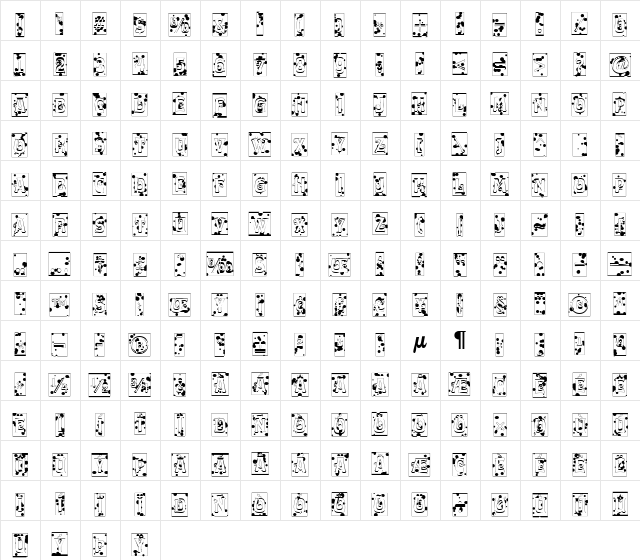
a_LuggerCmInkBl Regular
| Designer | W.Chufarofsky & M.Slutsker |
Design Context for a_LuggerCmInkBl Typeface
a_LuggerCmInkBl is a composed and adaptable typeface that performs quietly and consistently across a wide range of design contexts.